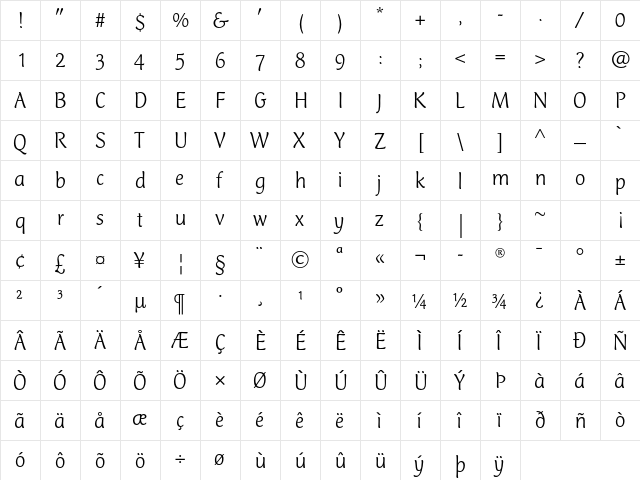
Mercurius CT Std Light
Light ·  Adrian Williams ·
Design Context for Mercurius CT Std Typeface
Mercurius CT Std is a composed and adaptable typeface that performs quietly and consistently across a wide range of design contexts. Its slender proportions lend an understated elegance to any composition.